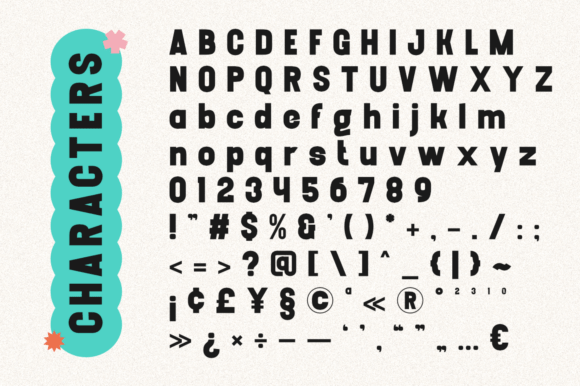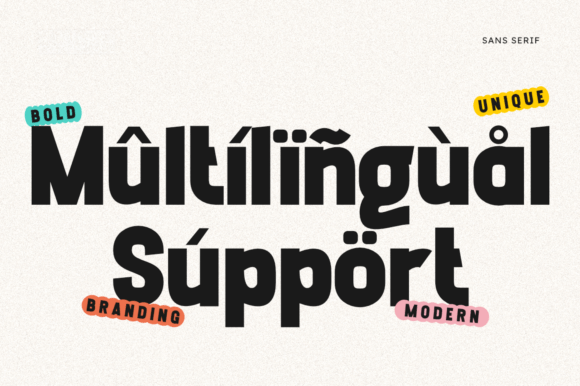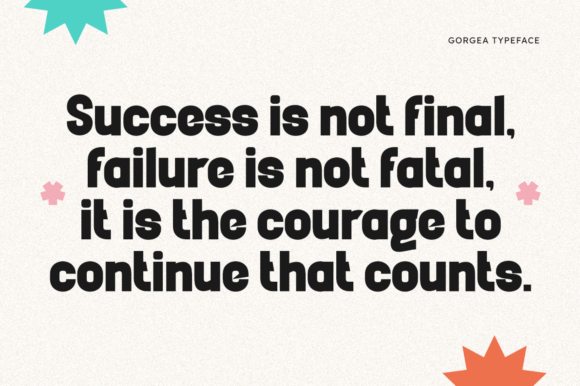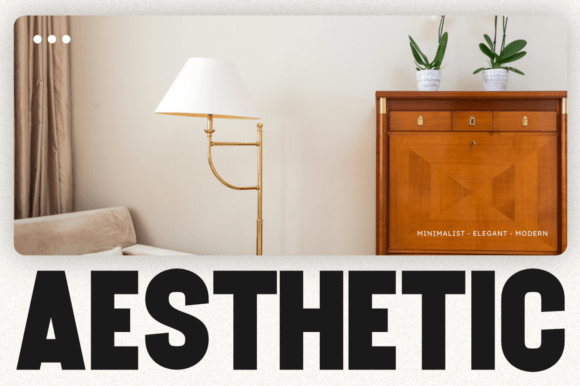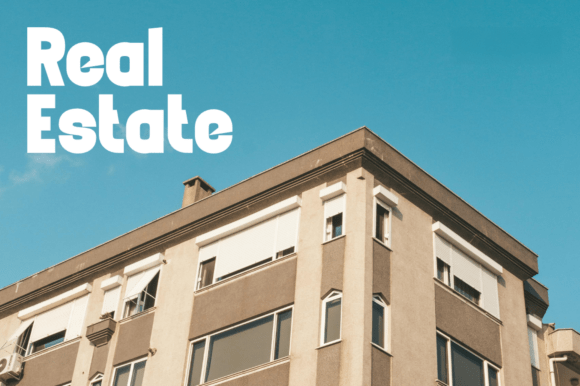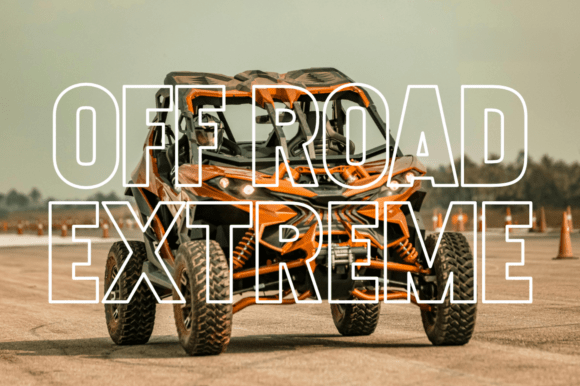
Unlocking the Power of Modern Minimalism
As designers, we’ve all been there – staring at a blank canvas, trying to conjure up the perfect idea to capture the essence of our brand. It’s that moment of clarity, when everything falls into place, and you know you’ve created something truly special. But, it’s not just about the idea – it’s about the execution, the typography, the font that brings it all together.
Enter the Gorgea Font, a bold sans serif font designed to deliver modern minimalism with confident elegance. Whether you’re working on impactful branding, clean logos, editorial headlines, or striking social media graphics, Gorgea brings a fresh, contemporary feel to any project that needs to stand out. For designers, this font is a valuable asset, providing a versatile tool to elevate their work and make a lasting impression.
Gorgea Font Key Features
- Font Family: Gorgea is a sans-serif font family designed for digital use.
- Unique Characteristics: Gorgea features a clean and modern design with a subtle rounded edge, making it suitable for a wide range of applications, from digital interfaces to branding materials.
Gorgea Font Review
I recently had the chance to work with the Gorgea font, and I’m excited to share my honest review.
The Gorgea font is a modern sans-serif font that’s perfect for digital design projects. It’s clean, elegant, and highly legible, making it an excellent choice for body text. I also appreciate its wide range of weights and styles, which provide a lot of flexibility for designers.
- Highly legible and clear
- Wide range of weights and styles
- Perfect for digital design projects
While the Gorgea font is a solid choice, I did notice a few limitations. The font can feel a bit sterile or cold, which might not be ideal for projects that require a warmer or more emotive tone. Additionally, some of the thinner weights can be difficult to read at smaller sizes.
- Can feel sterile or cold
- Thinner weights can be difficult to read at smaller sizes
Overall, I think the Gorgea font is a solid choice for digital design projects. While it has its limitations, its strengths make it a versatile and effective font for a wide range of applications.
Gorgea Font: A Practical Application Guide
Tips for Getting the Most Out of Gorgea Font
Use Gorgea Font in conjunction with bold and italic styles to create visual interest and emphasis. Experiment with different font sizes and colors to create a unique and modern look. Gorgea Font is also a great choice for creating responsive designs that work well on various devices and screen sizes.
Gorgea Font is commonly used for:
- Modern and minimalist designs
- Social media graphics and marketing materials
- Logos and typography-based designs
- Print materials and reports
- Presentations and documents
Alternatives to Gorgea Font
Montserrat is a geometric sans-serif font designed by Julieta Ulanovsky. It’s ideal for use in digital products, such as apps and websites, due to its clean and modern appearance. Montserrat is a great alternative to Gorgea Font for designers who want a similar aesthetic with a more versatile and widely used font.
Comparison: Montserrat is more geometric and modern compared to Gorgea Font, which has a more rounded and elegant feel.
Lato is a sans-serif font designed by Łukasz Dziedzic. It’s a highly legible font that works well for body text and headings, making it suitable for use in long-form content. Lato is a good alternative to Gorgea Font for designers who want a clean and readable font without the rounded feel of Gorgea.
Comparison: Lato is more minimalistic and legible compared to Gorgea Font, which has a more decorative and elegant feel.